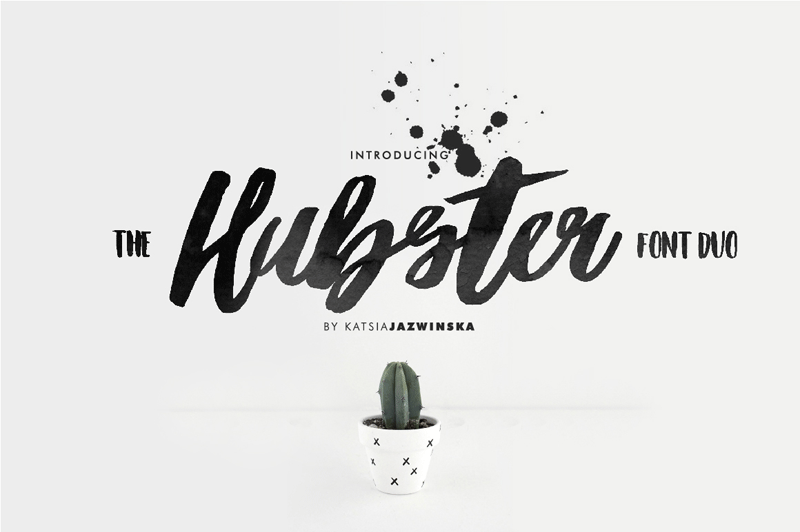
Font name: | Hubster |
Author: | Katsia Jazwinska |
Note by Katsia Jazwinska | |
Introducing Hubster , an artsy, unruly handwritten duo font full of charisma, simple and easy to create awesome lettering. Hubster comes with upper and lowercase Standard Characters, Punctuation, Numerals, Special European Characters and additional Caps Typeface. THIS IS DEMO VERSION ONLY! FOR PERSONAL AND COMMERCIAL USE DOWNLOAD THE FULL VERSION HERE: https://creativemarket.com/Jazwinska/882842-Hubster-Font-Duo Features: -Uppercase & lowercase -Punctuation & numerals -Multi-language characters -Bonus Caps -TTF, OTF, WOFF, EOT -378 Glyphs |